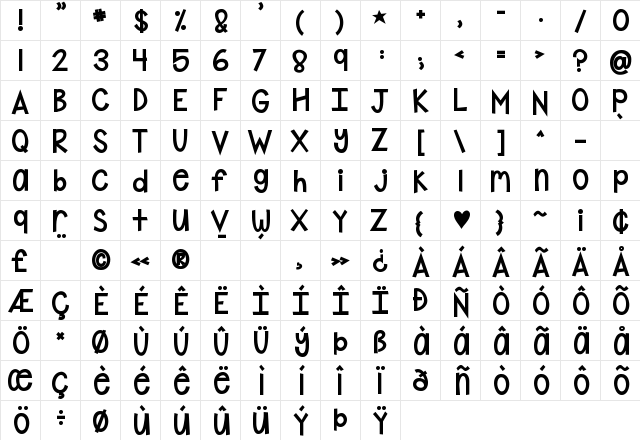
KG Shake it Off Chunky Regular
| Foundry | Kimberly Geswein |
| Designer | Kimberly Geswein |
Design Context for KG Shake it Off Chunky Typeface
KG Shake it Off Chunky is a composed and adaptable typeface that performs quietly and consistently across a wide range of design contexts.
Pro Tip: Use KG Shake it Off Chunky in both headline and body roles to test its range before committing to a single application.